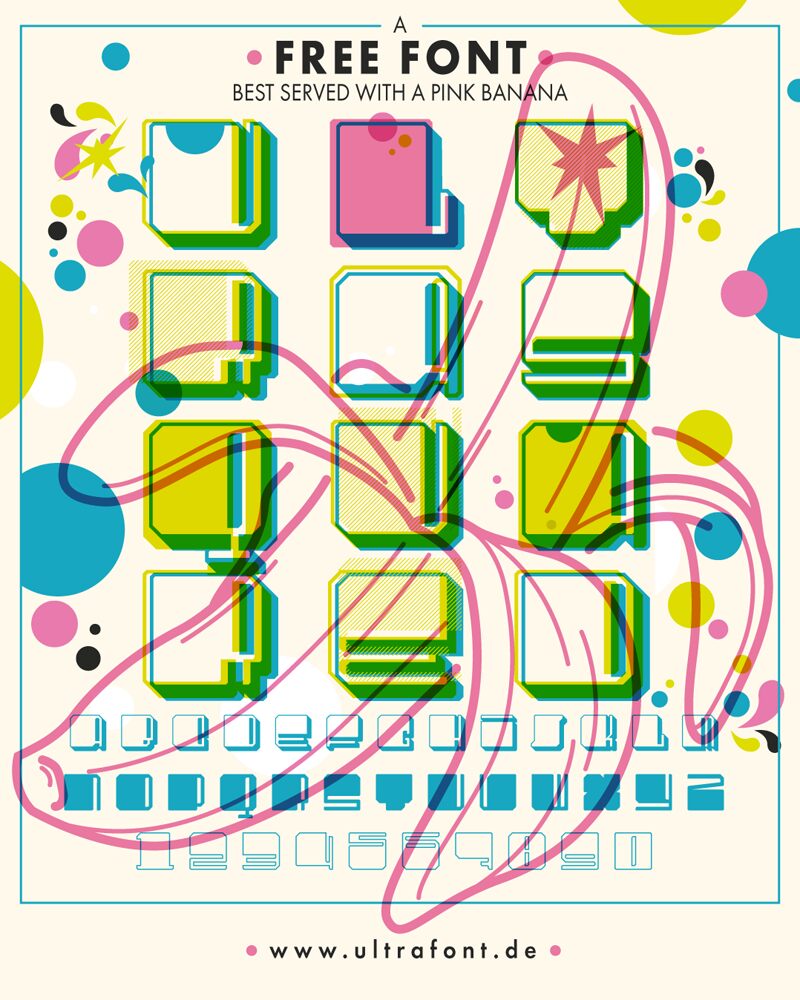
UltraSquared Shadow
UltraSquared Shadow font by Ultrabold Kommunikationsdesign is a free display font with a 3D and groovy style. The typeface features powerful bold bulging expanded letters that feel playful and dominating all at once. The letters have vertical parallel line engravings in them which further enhances the 3-dimensional effect.
This modern digital-inspired block-like font remains suitable for titles, headings, posters, wall signs, T-shirt designs, quotes, magazine layouts, newspapers adverts/flyers, banners/stands and other branding projects.
This letter was part of 36 days of type 2021